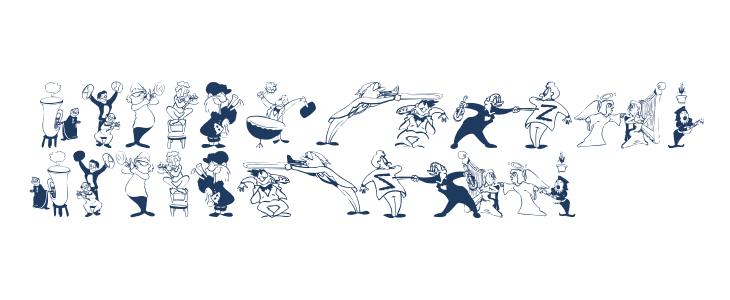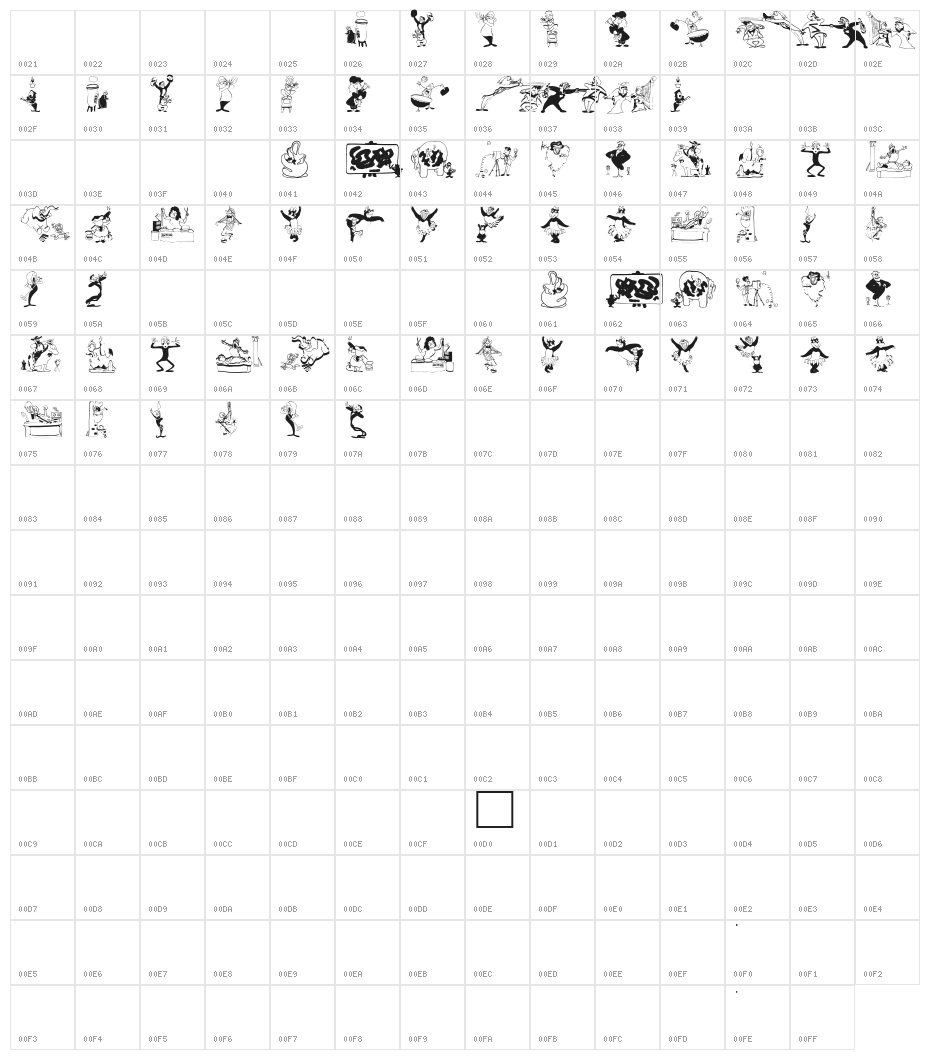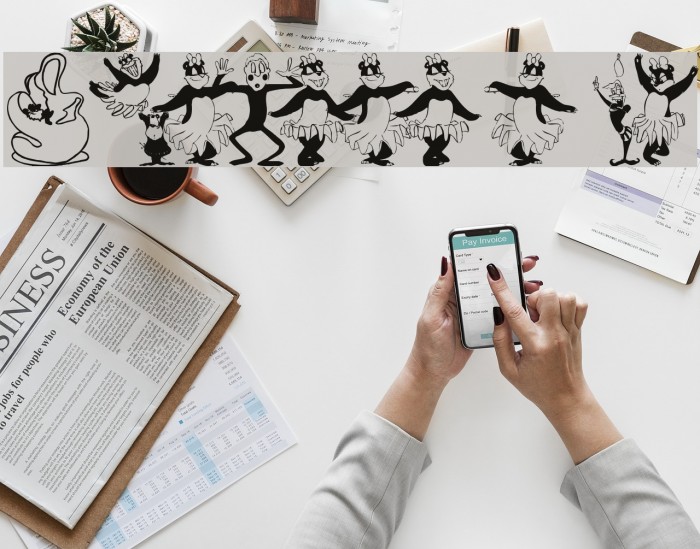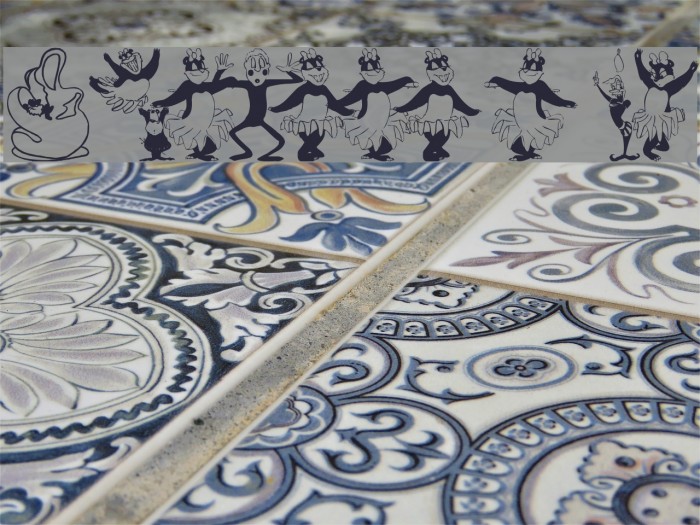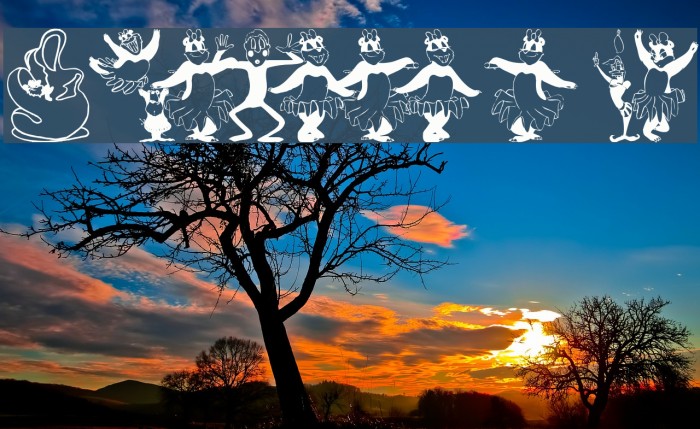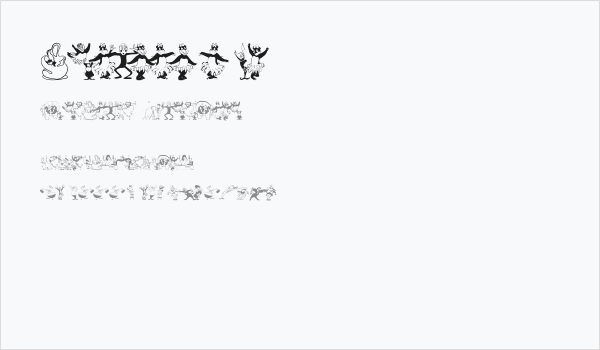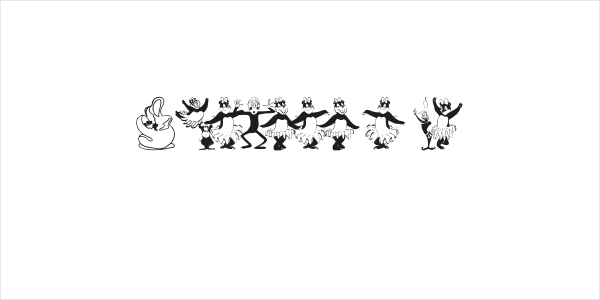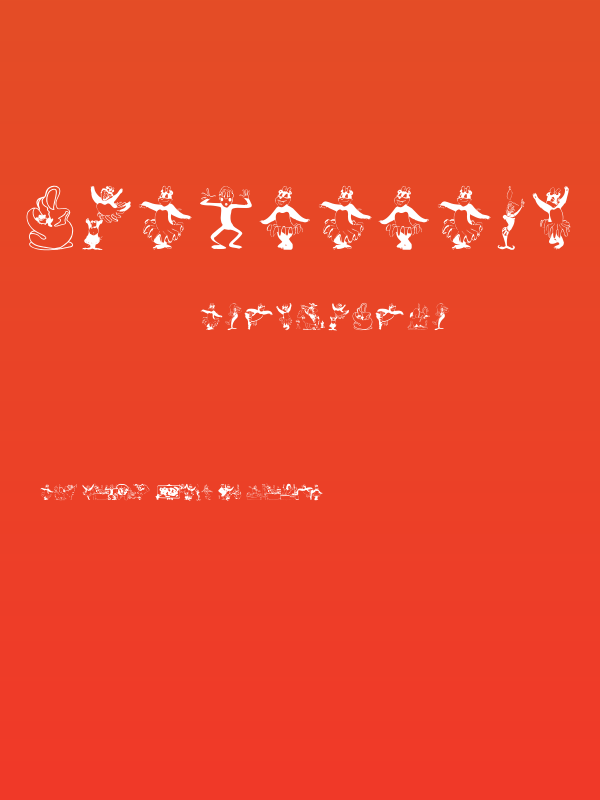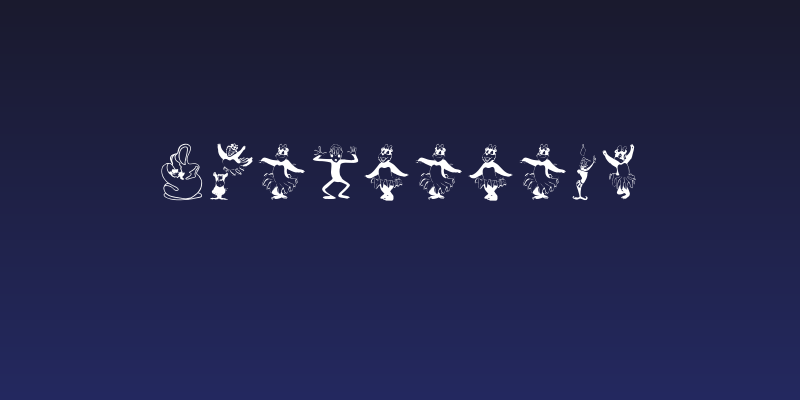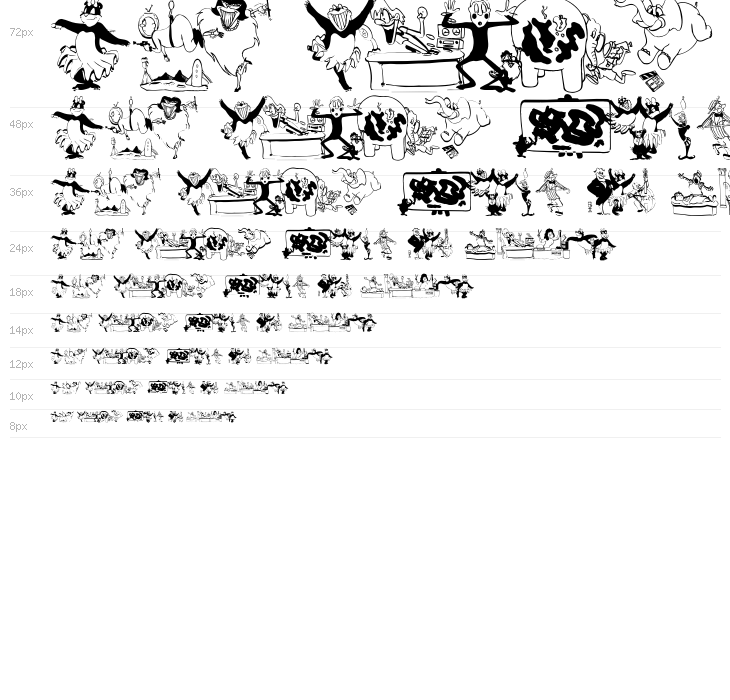
ArtistsTwo Font
ArtistsTwo Description
A whimsical, illustrative font where each character is represented by a playful cartoon scene featuring expressive human figures and props, creating a lively and narrative-driven alphabet. The style is highly decorative, with each letter or symbol integrated into a unique, hand-drawn vignette.
| Overall Style | Decorative, Playful, Whimsical |
| Use Case | Headlines, Posters, Logos, ChildrenΓ’β¬β’s content |
| Proposed Projects | ChildrenΓ’β¬β’s books, posters, event invitations, creative branding, comic titles, educational materials. |